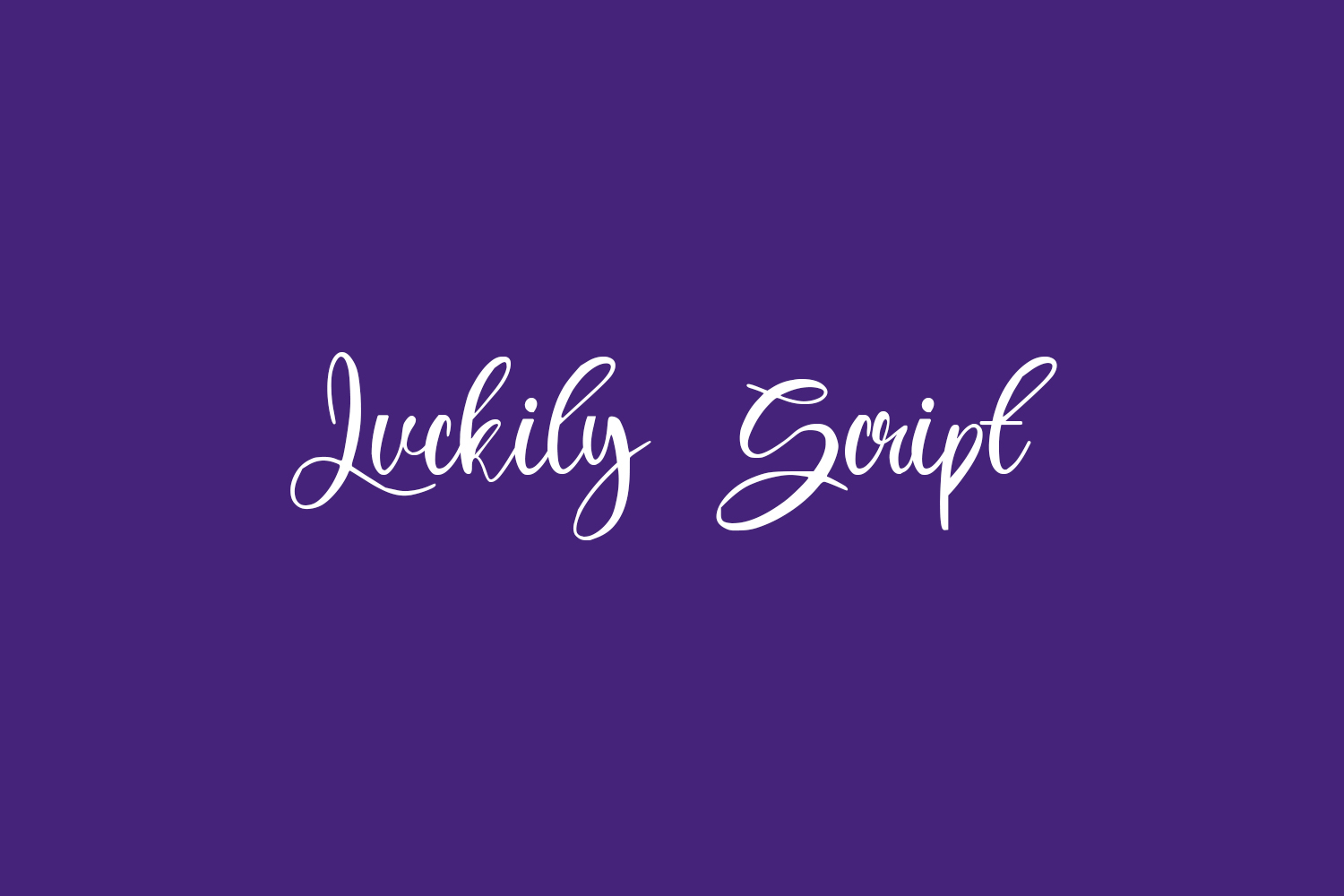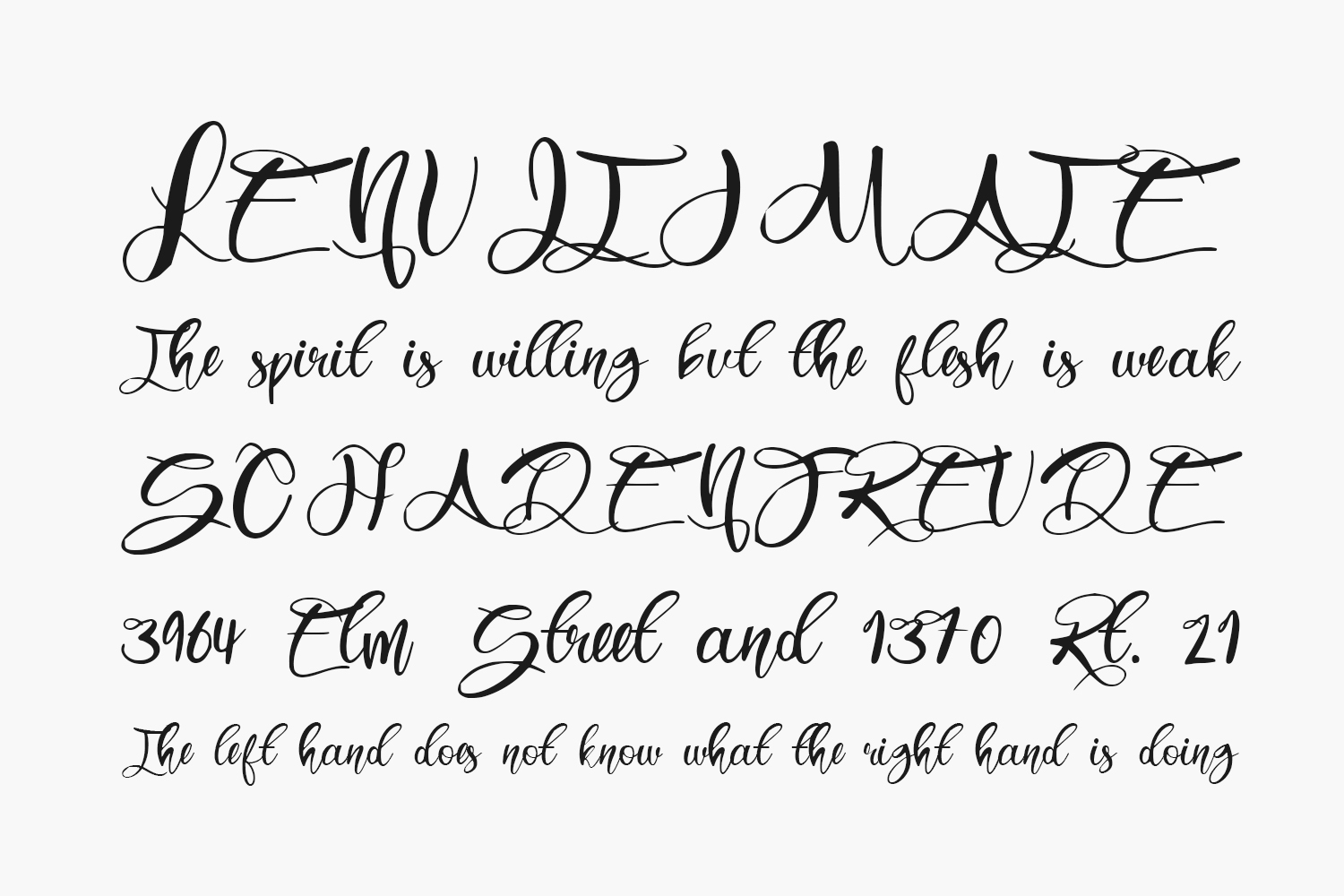
Luckily Script Free Font is a very fun yet elegant script font with lots of energy, allowing you to create beautifully handcrafted typography. This font is perfect for logos, printed quotes, invitations, cards, product packaging, headers, and anything else you can imagine. Luckily Script Free Font was designed by Faizal and is free for personal use only. Please purchase the full version for commercial use.